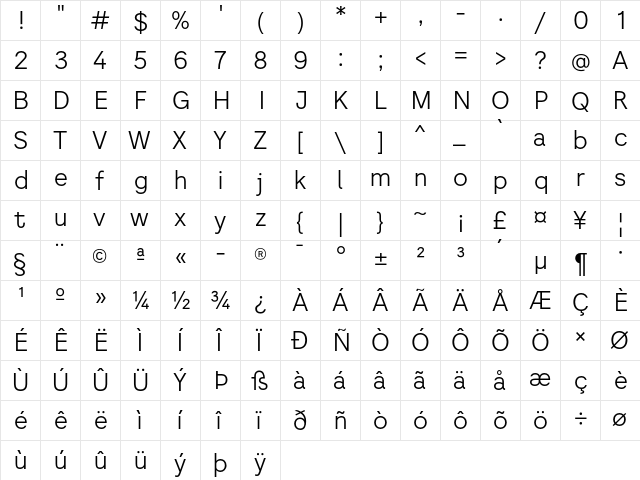
Literal Light
| Foundry | Igor Kosinsky |
| Designer | Igor Kosinsky |
Design Context for Literal Typeface
Literal is a composed and adaptable typeface that performs quietly and consistently across a wide range of design contexts. Its slender proportions lend an understated elegance to any composition.